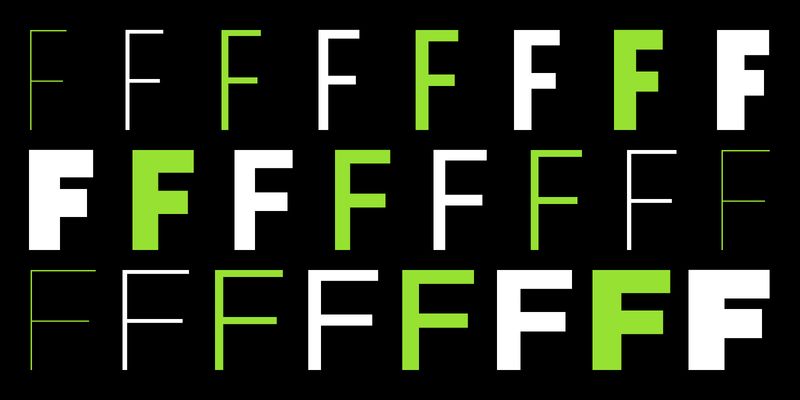
Fort Font Free Download
Fort Font Free Download is a bold, strong, and geometric typeface designed with both power and readability in mind. Featuring sharp angles and clean, structured lines, Fort is perfect for headlines, branding, posters, and any design that requires a modern, impactful appearance. Its sturdy, angular design evokes a sense of stability and strength.
This font is versatile, with great legibility even at larger sizes, making it an excellent choice for graphic design projects in both print and digital formats. Whether you’re working on logo design, editorial layouts, or marketing materials, Fort provides a contemporary aesthetic that captures attention without overwhelming the viewer.